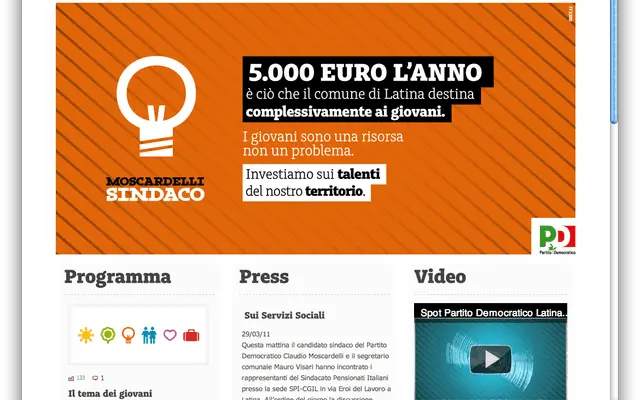
Irma Display Slab
The slab-serif display cut of Typotheque's expansive Irma system, spanning nine weights from Hairline to Black for headline and large-scale work.
Part of an unusually broad type system that spans display and text optical sizes, slab and sans variants, and a rounded text cut, Irma Display Slab offers nine weights tuned for large-scale composition. The wider Irma system includes Irma Text Narrow for tight measures and Irma Text Round for a softer register, making the family adaptable across complex editorial and branding projects. The slab cut brings structure and weight contrast without sacrificing the coherence shared across all six sub-families.
Irma Display Slab is the slab-serif variant of a large display family, positioned for headline and large-scale use with bracketed slab serifs across a wide weight range. Classified as display given its optical sizing and contrast levels suited to large sizes rather than text.